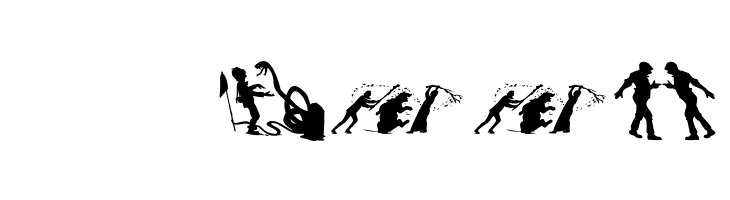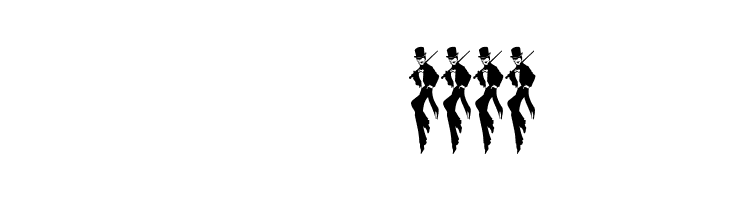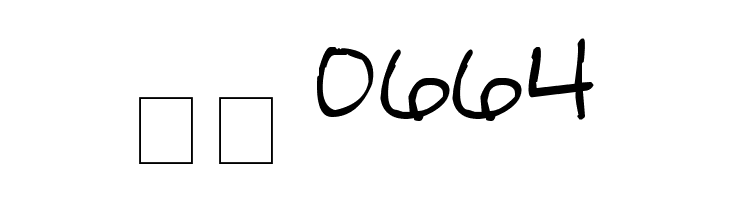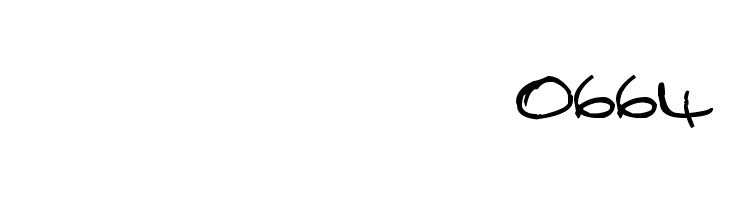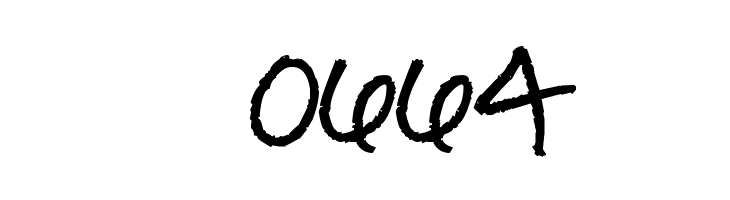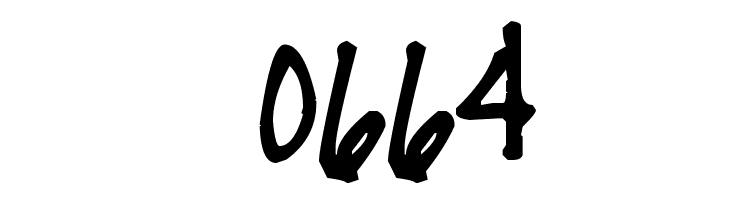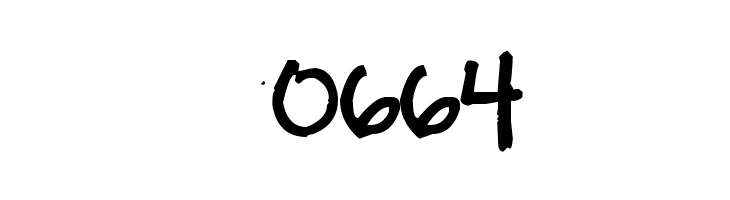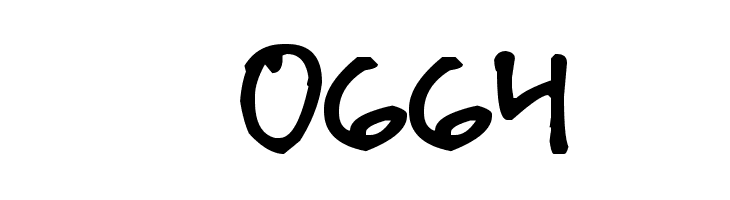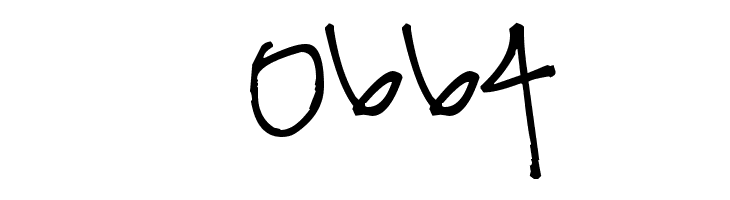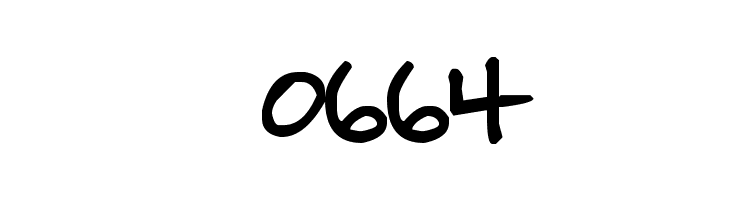
A playful, handwritten font with a casual and informal style.
A playful, casual handwritten font with irregular strokes and a lively feel.
A playful, handwritten font with a casual and dynamic style.
A playful, handwritten font with bold, irregular strokes and a casual style.
A playful, bold handwritten font with an energetic and casual style.
A bold, handwritten font with a playful and informal style.
A playful, casual handwritten font with free-flowing strokes and uneven spacing.
A playful, hand-drawn font with whimsical doodles and casual lettering.
A playful, handwritten font with bold, uneven strokes and a casual style.
A bold, expressive handwritten font with dynamic strokes and artistic flair.
A playful, hand-drawn font with a whimsical and casual style.
A playful, hand-drawn font with bold, uneven strokes and a casual style.
A casual, playful handwritten font with fluid strokes.
A playful, casual handwritten font with smooth, flowing strokes.
A whimsical collection of playful hand-drawn doodles.
A playful, bold handwritten font with a casual and friendly style.
A playful, handwritten font with a casual and personal touch.
A playful, casual handwritten font with a relaxed and organic style.
A bold, playful handwritten font with expressive strokes and a casual vibe.
A casual, playful handwritten font with a dynamic and lively appearance.
A playful, handwritten font with bold strokes and a casual, approachable style.
A playful, casual handwritten font with a youthful and energetic vibe.
A bold, handwritten font with a playful and informal style.
A playful handwritten font with a casual and friendly vibe.
A playful, casual handwritten font with irregular strokes.
A playful, casual handwritten font with fluid, connected letterforms.
A playful, handwritten font with a casual and friendly appearance.
A playful, handwritten font with bold strokes and medium contrast.
A playful, handwritten font with a casual and energetic style.
A playful, hand-drawn font with bold strokes and whimsical curves.
Cartoonish, illustrated font with playful and spooky character depictions.
Illustrative, character-based font depicting peace and war figures.
A pictorial, military-themed decorative font with each character as a unique illustrated figure.
A decorative font featuring intricate silhouettes of people and animals.